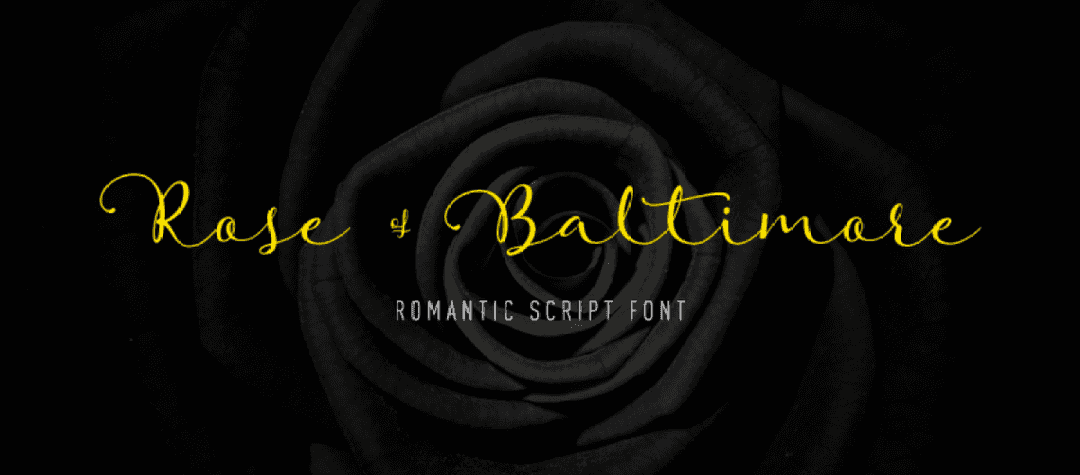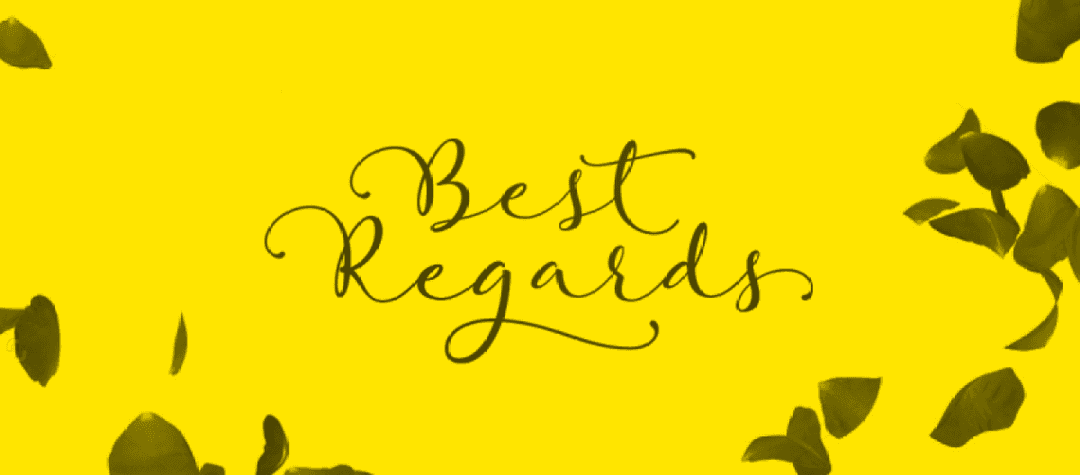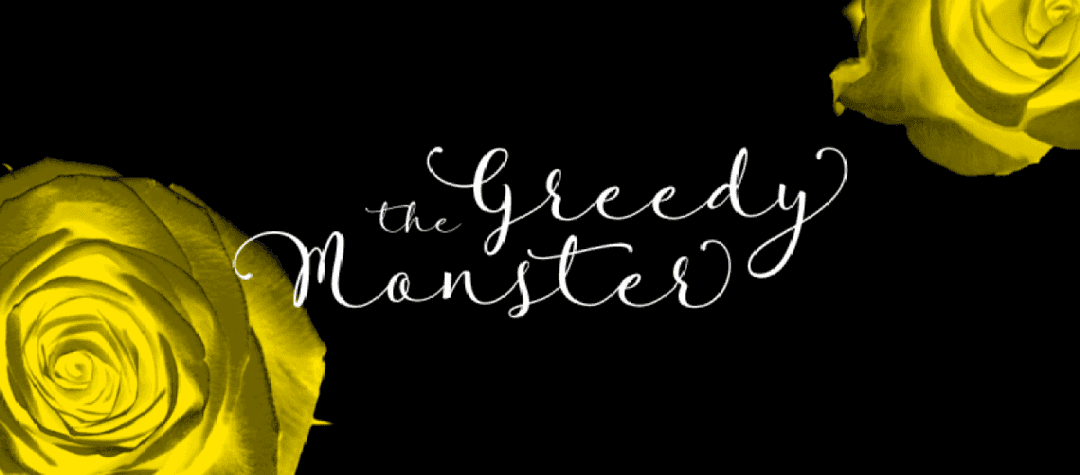
The typeface of Rose Of Baltimore structure is romance which generally depicts a rose. Perfect for lovers! The full commercial version has impressing set of the analogues of the glyphs, contextual ligatures, as well as more than a hundred of the additional glyphs to choose from.